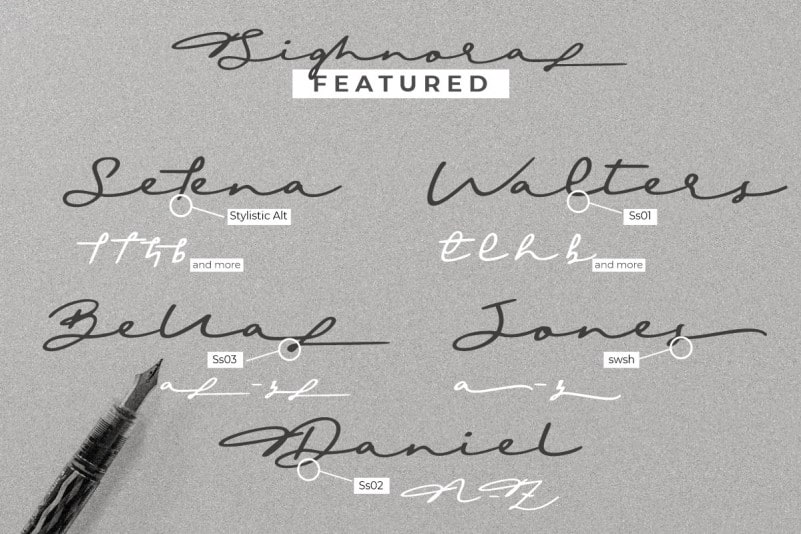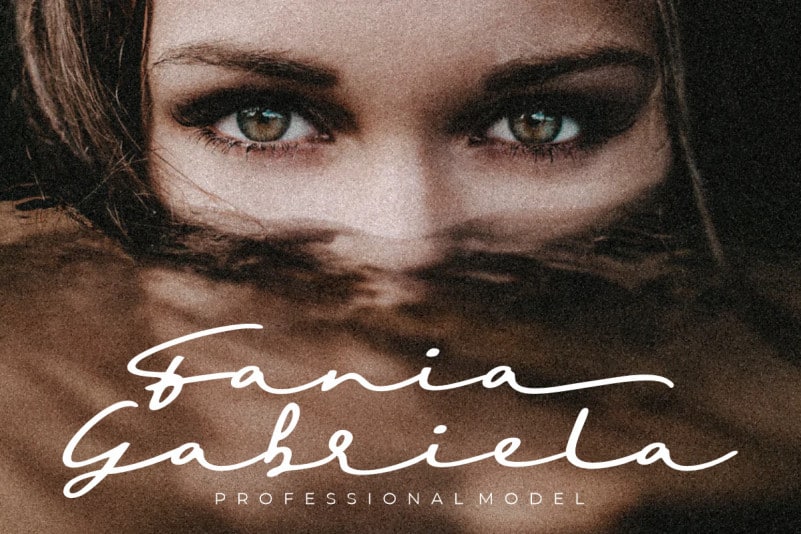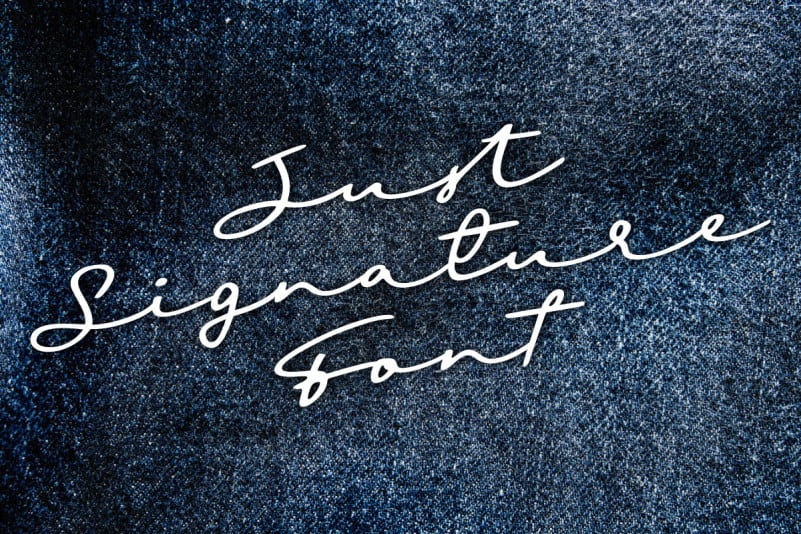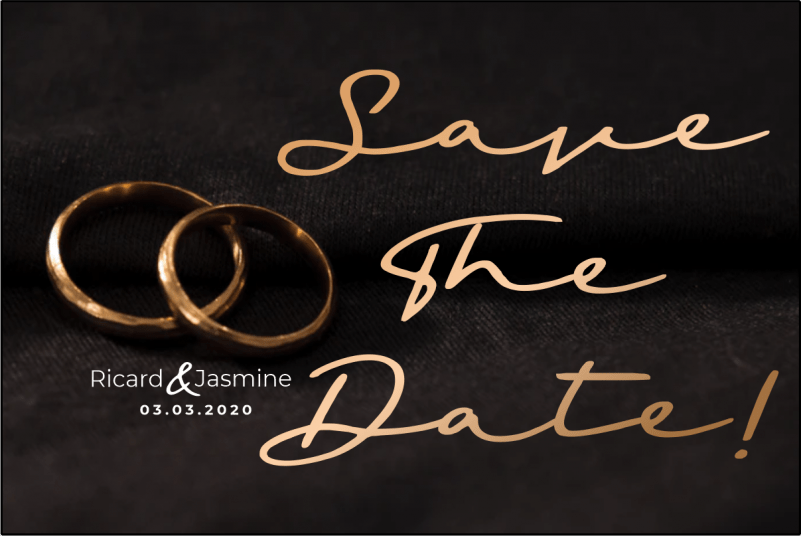
Sighnora Signature Script Font
Sighnora Signature Script Font is a signature style font that looks natural. Luxurious and elegant font. This signature font is perfect for weddings, watermarks, branding, business, business cards, product logos, etc.